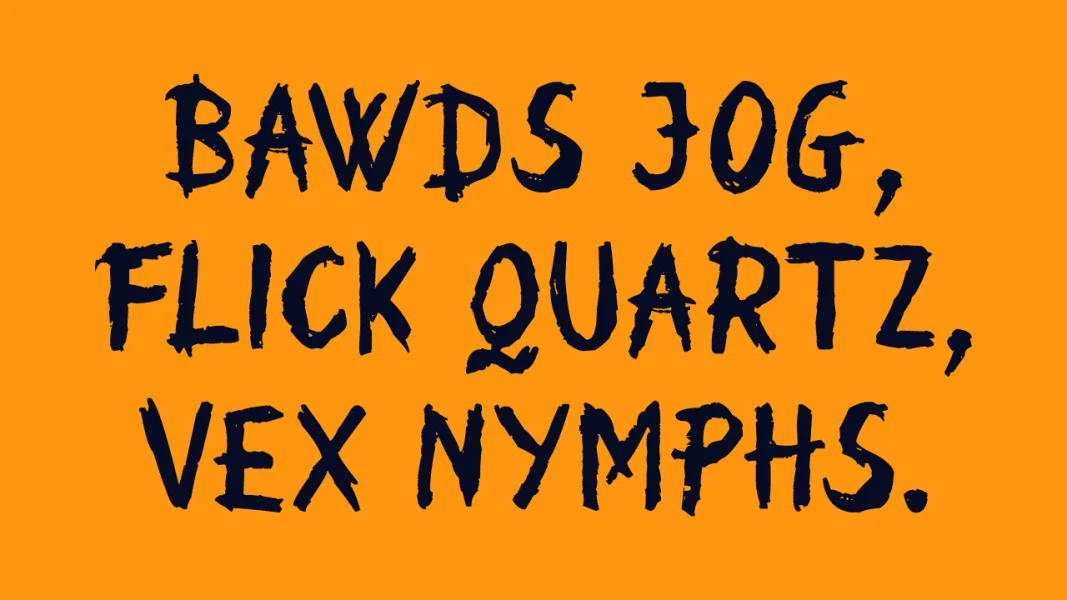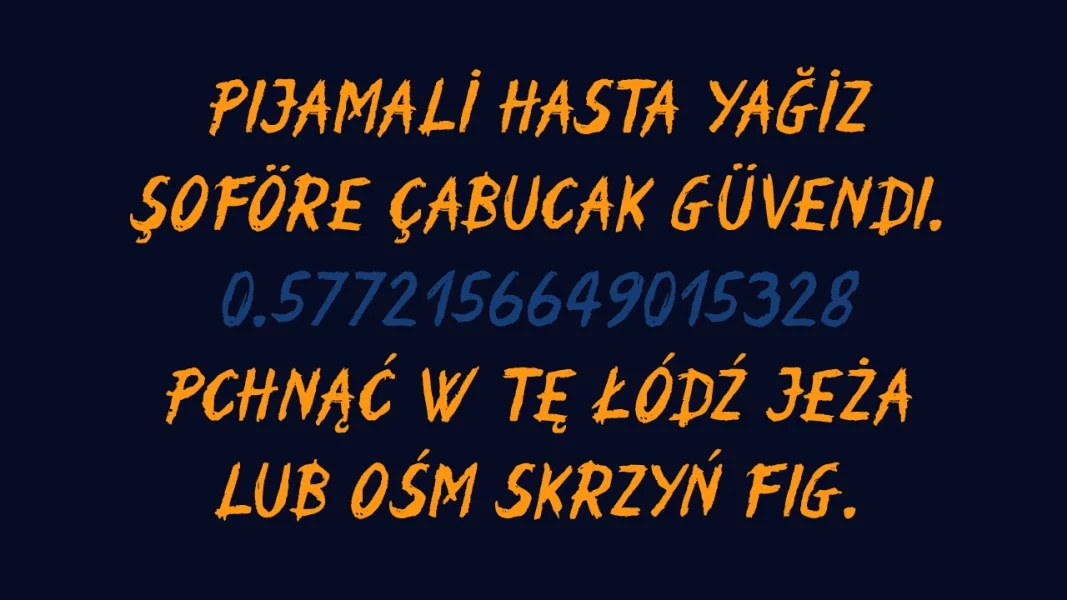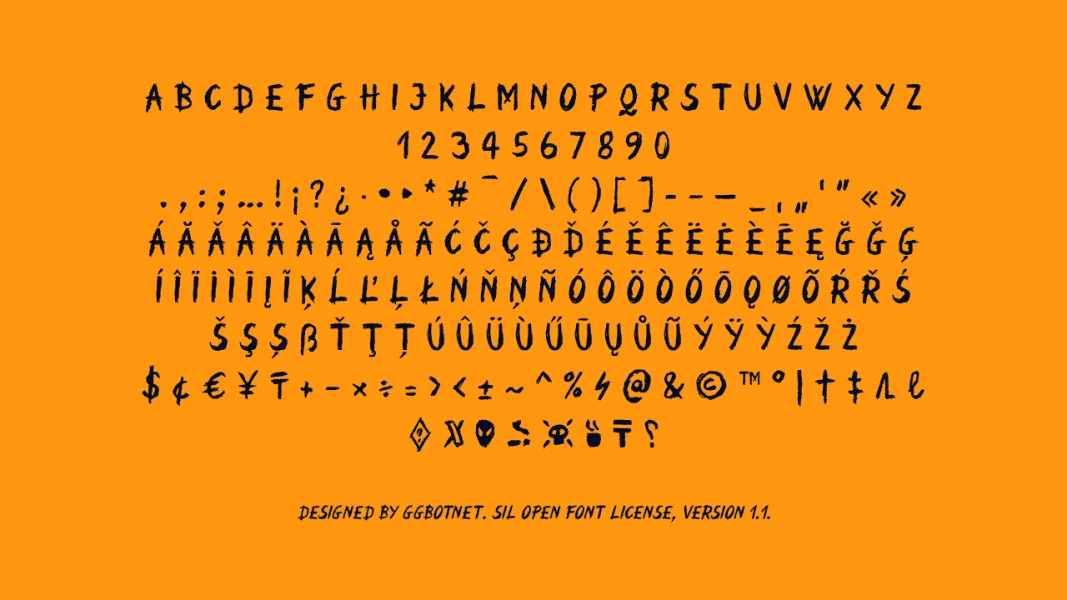
Moonlit Flow is a rough, hand-drawn display font with an energetic brush-cut texture and an eerie, playful edge. Its all-caps letterforms are irregular and narrow, with jagged edges, uneven strokes, and sharp angled details that give the rhythm a raw, scratchy feel.
The font works well for posters, Halloween graphics, indie game titles, album covers, stickers, packaging, and bold social media artwork where a distressed handmade voice is needed. It includes regular and italic styles, numerals, punctuation, and broad accented character support.